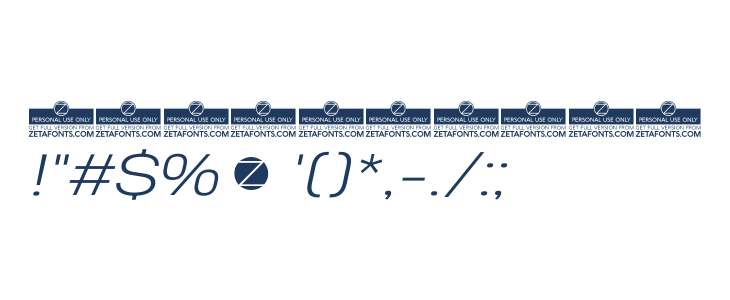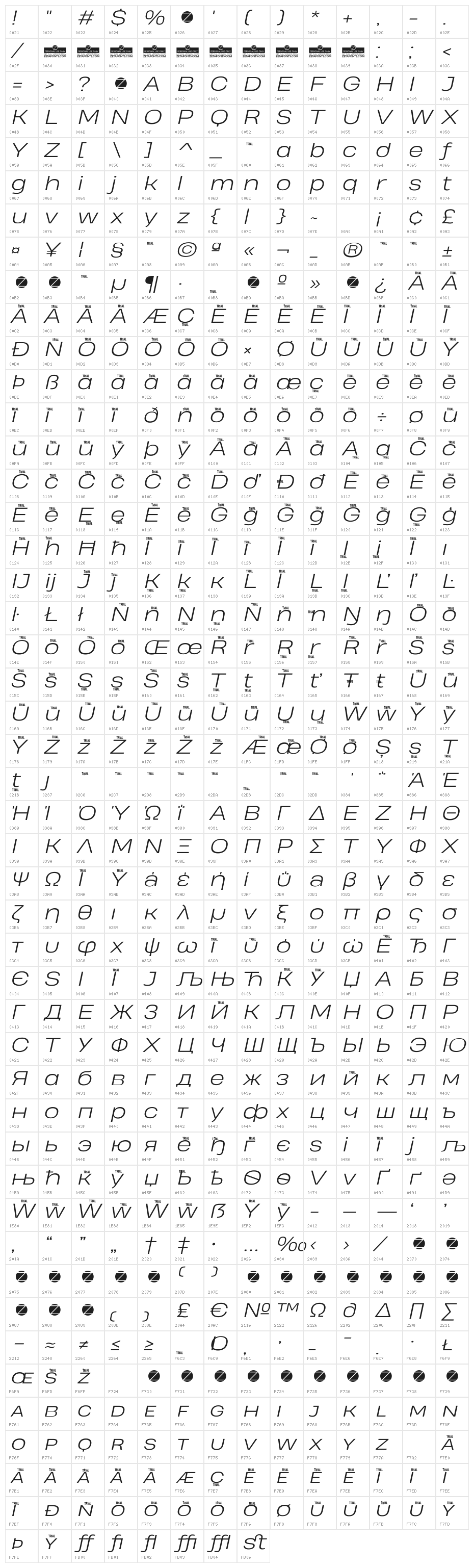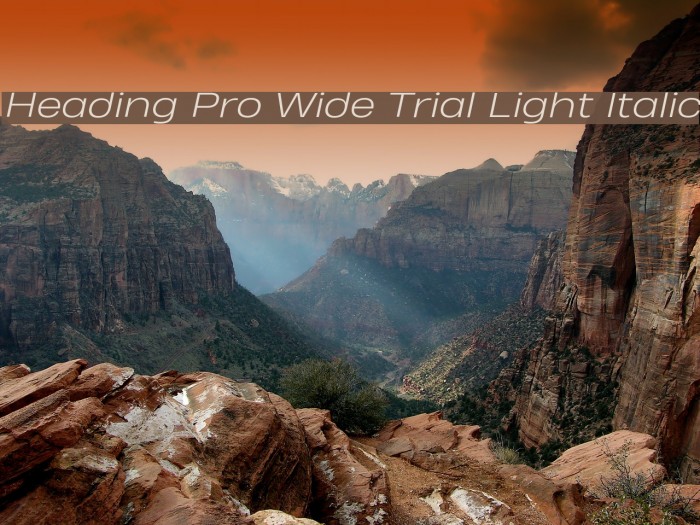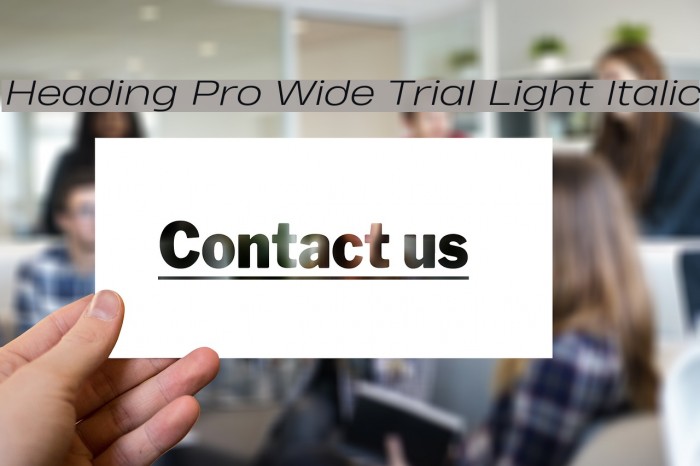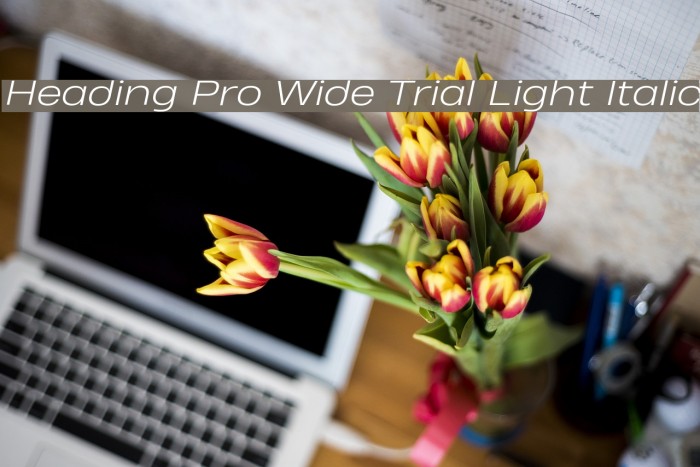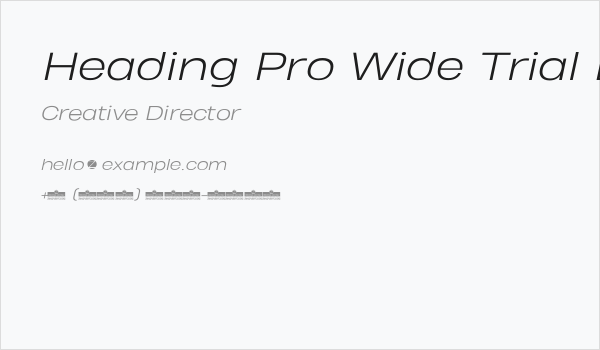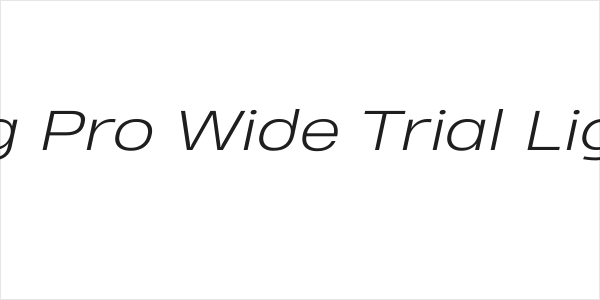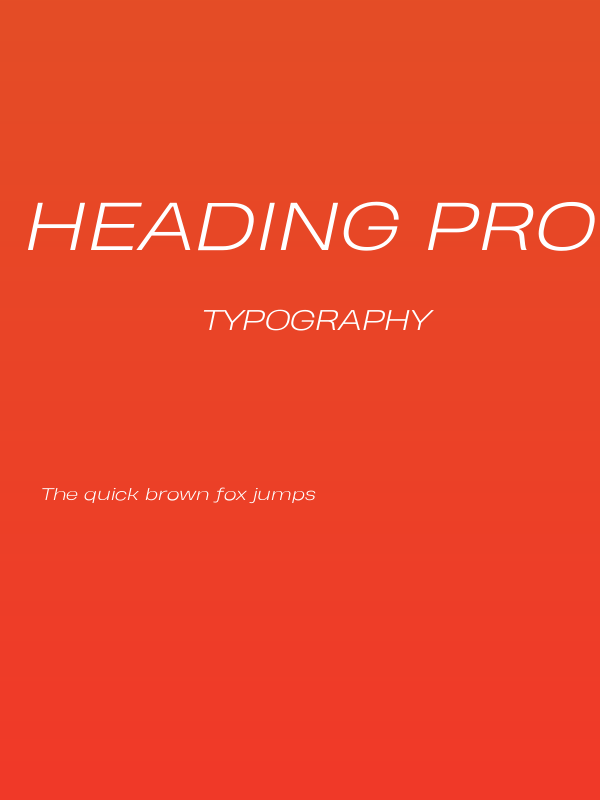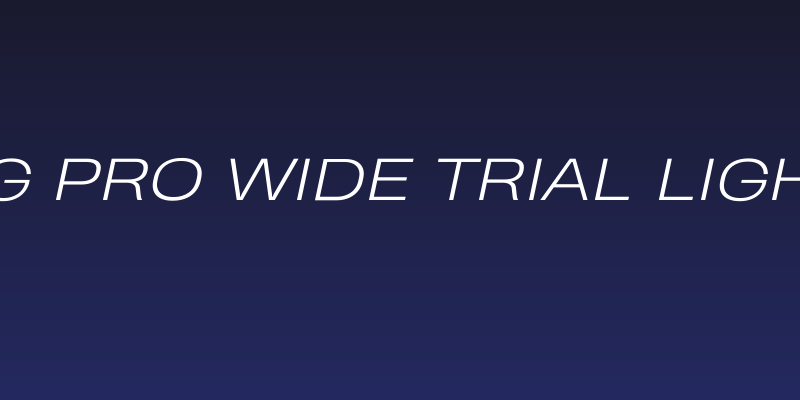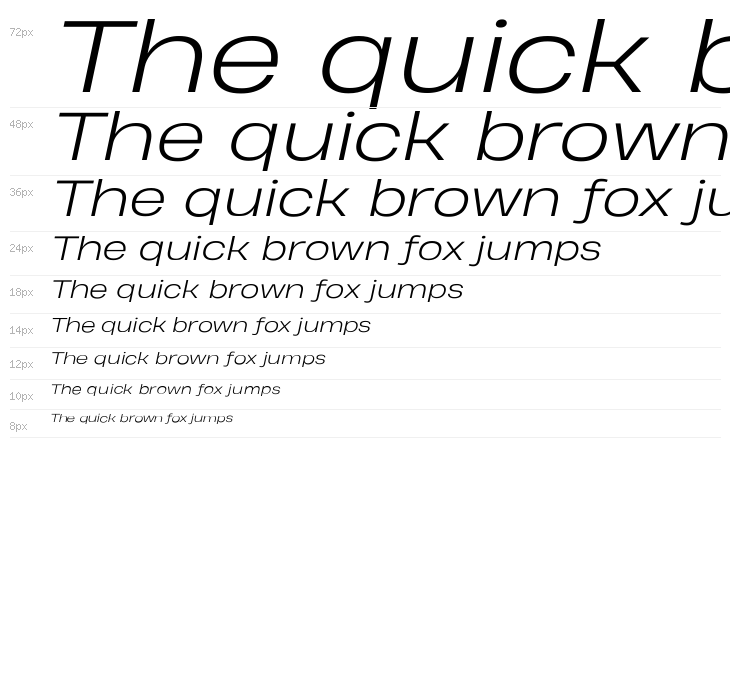
Heading Pro Wide Trial Light Italic Font
Heading Pro Wide Trial Light Italic Description
This font features a sleek, modern design with a wide stance and light weight, offering an elegant and airy appearance. The italic style adds a dynamic and fluid touch, making it suitable for contemporary and stylish applications. The characters are well-spaced, providing a clean and readable look. The font includes a full set of uppercase and lowercase letters, numbers, and a variety of special characters, ensuring versatility for various design needs. Its smooth curves and minimalistic design make it ideal for projects that require a sophisticated and modern aesthetic.
| Proposed Projects | Ideal for branding, advertising, fashion magazines, and modern web design. |